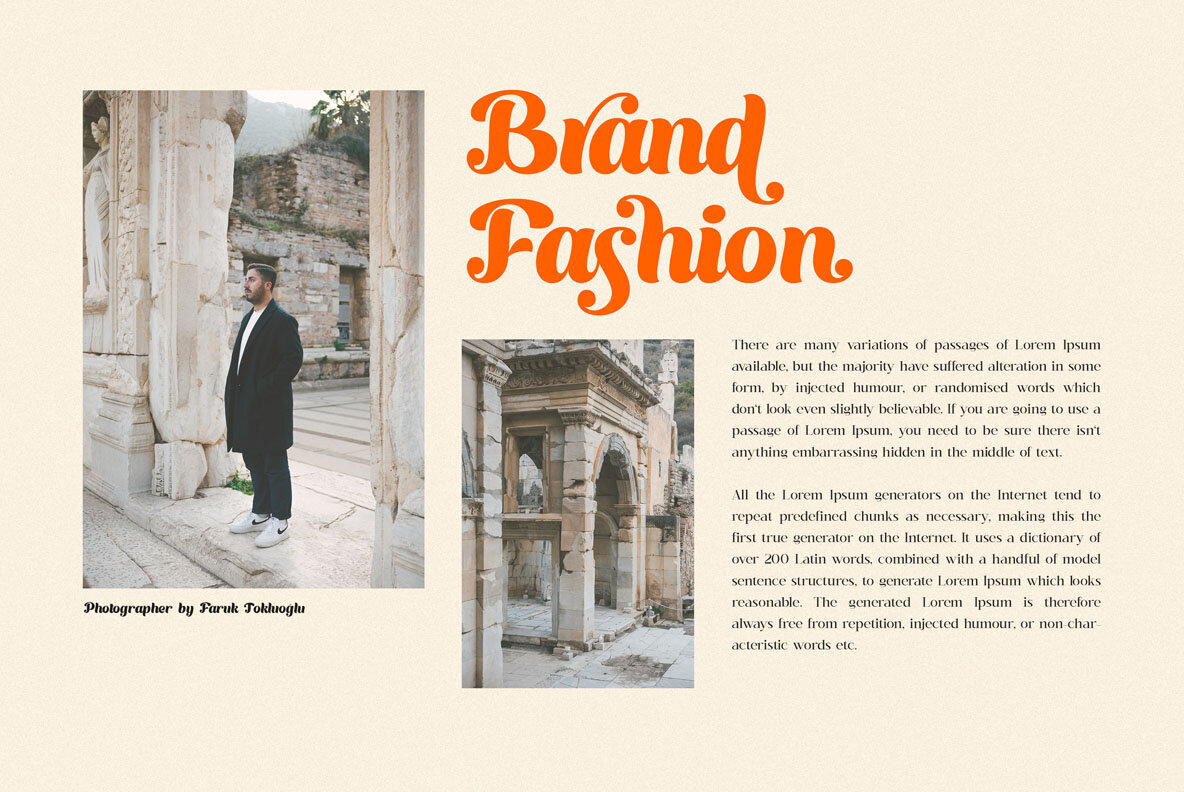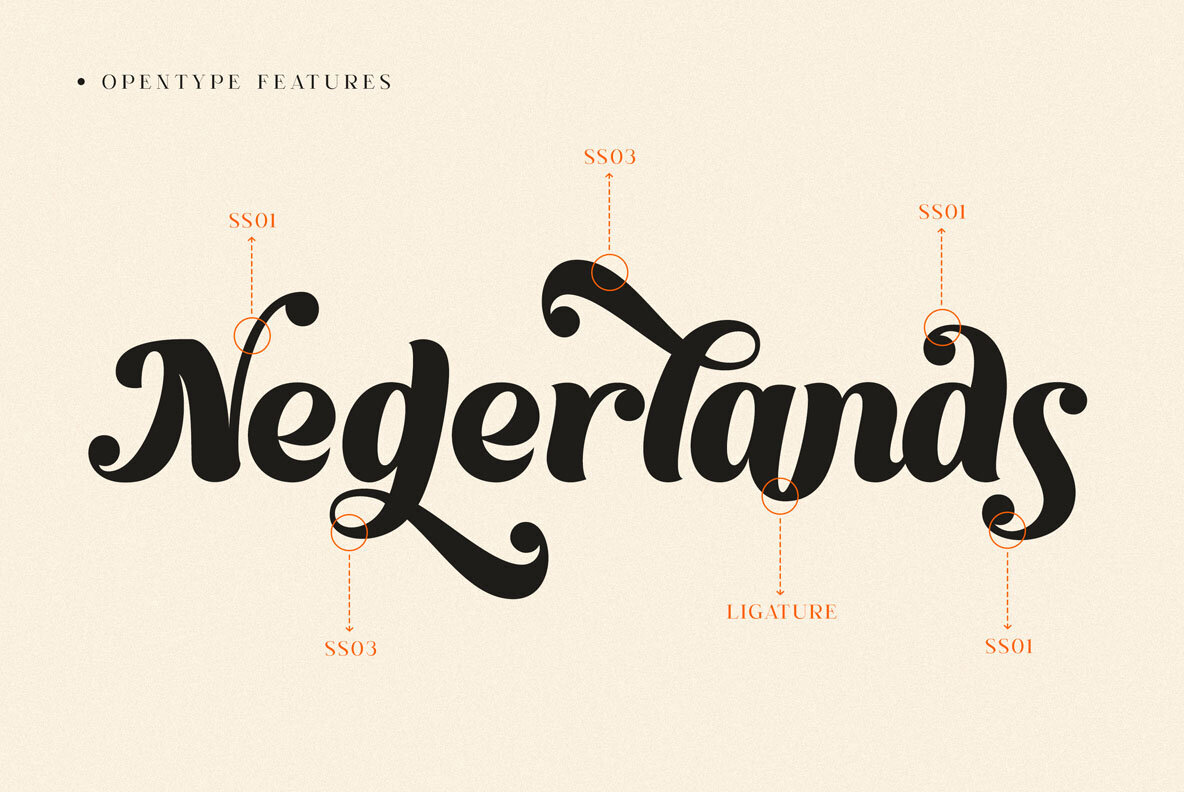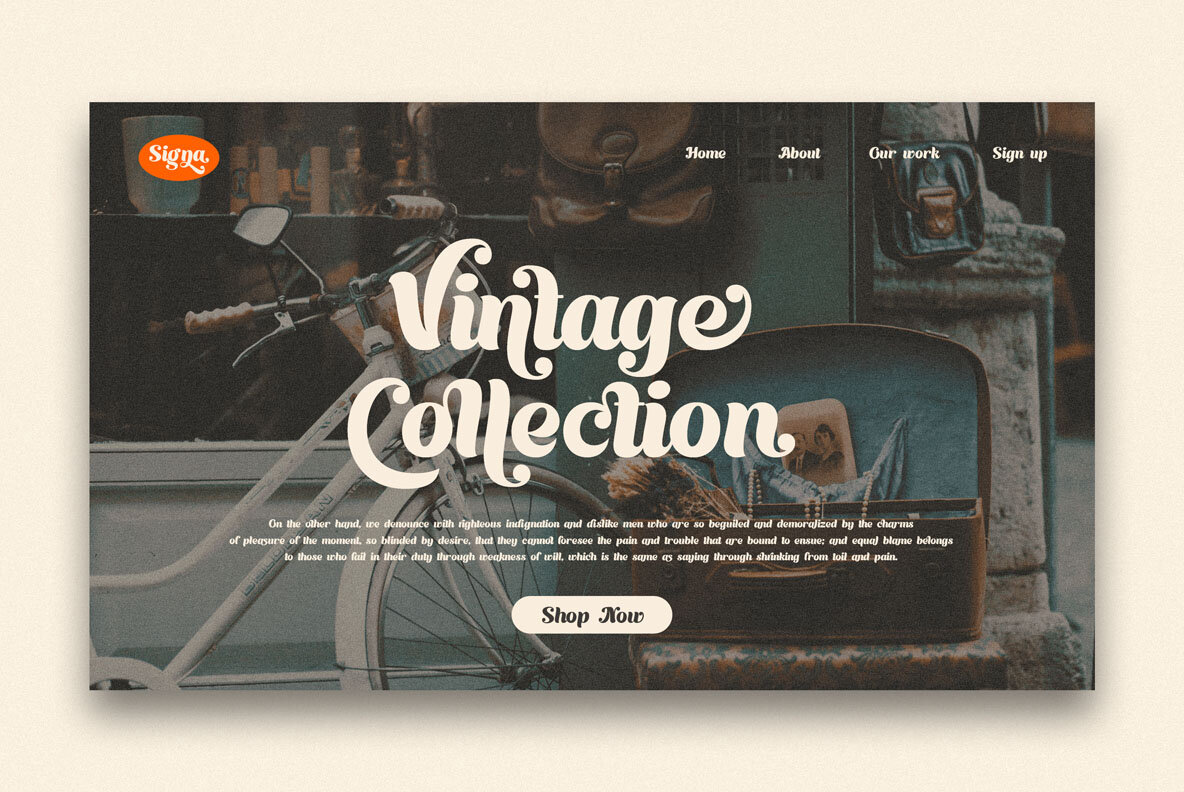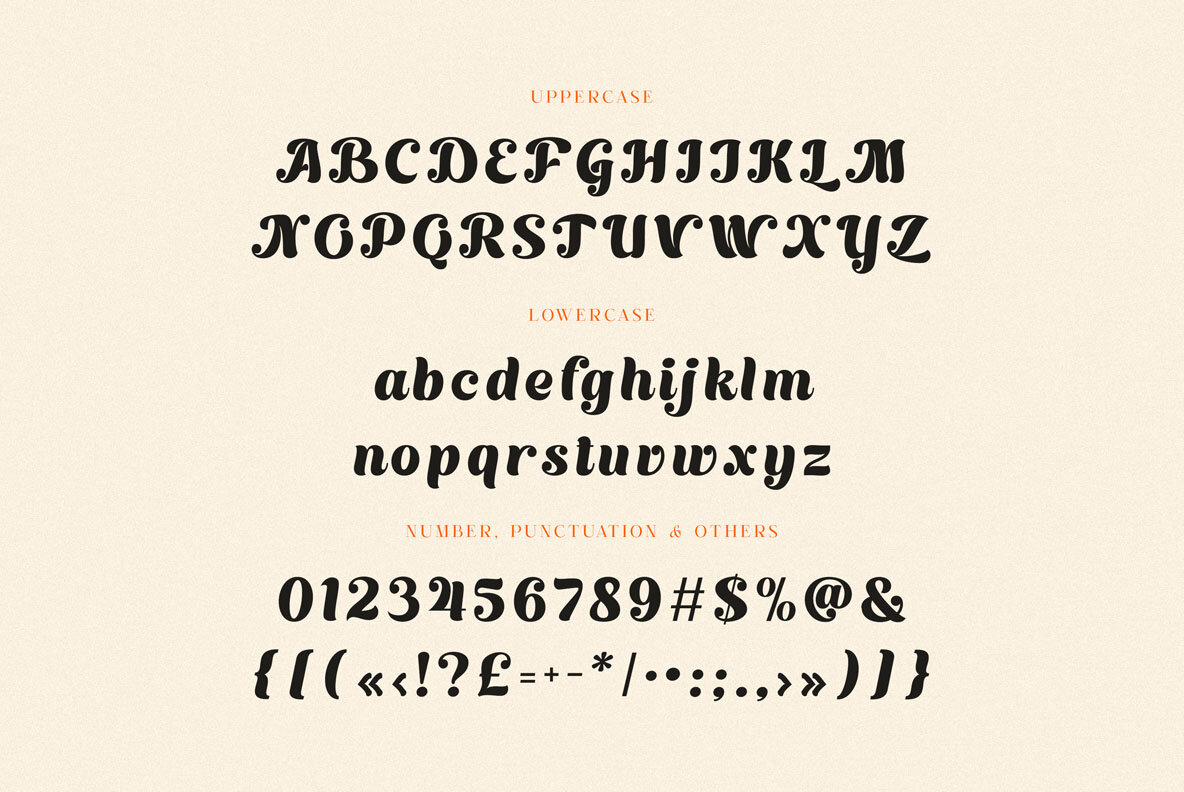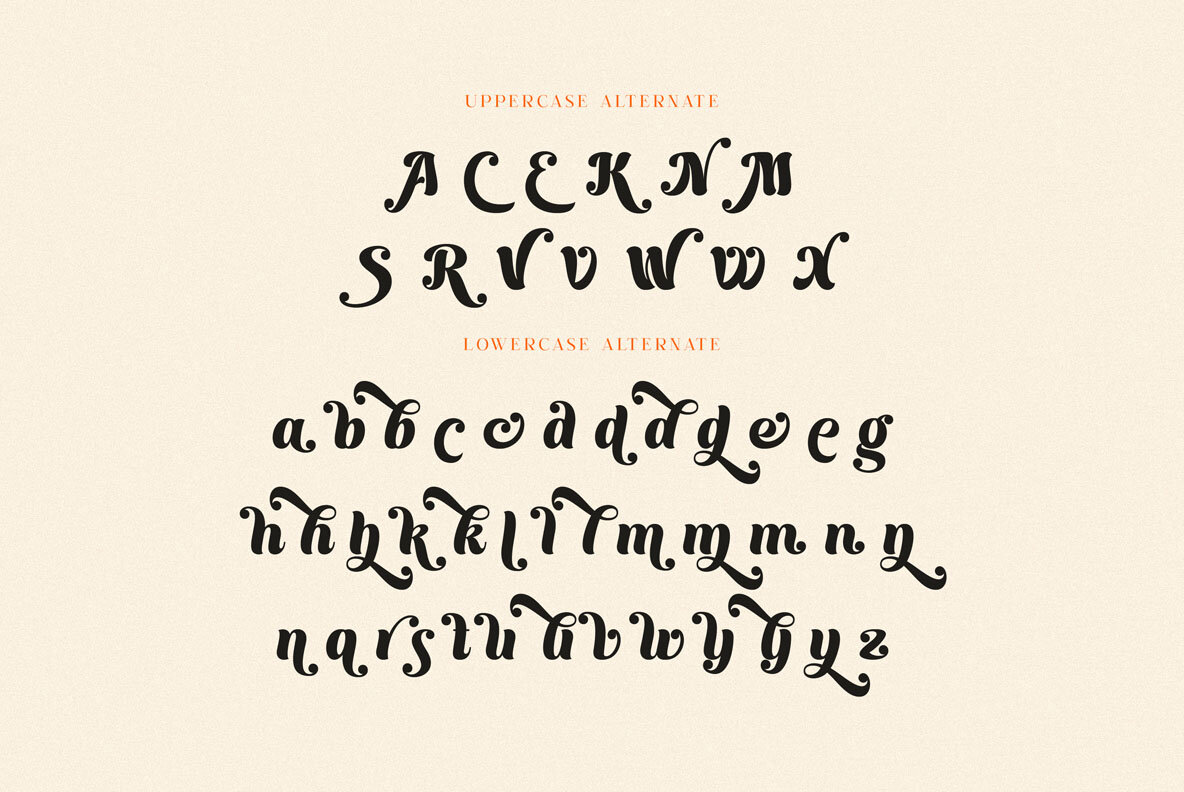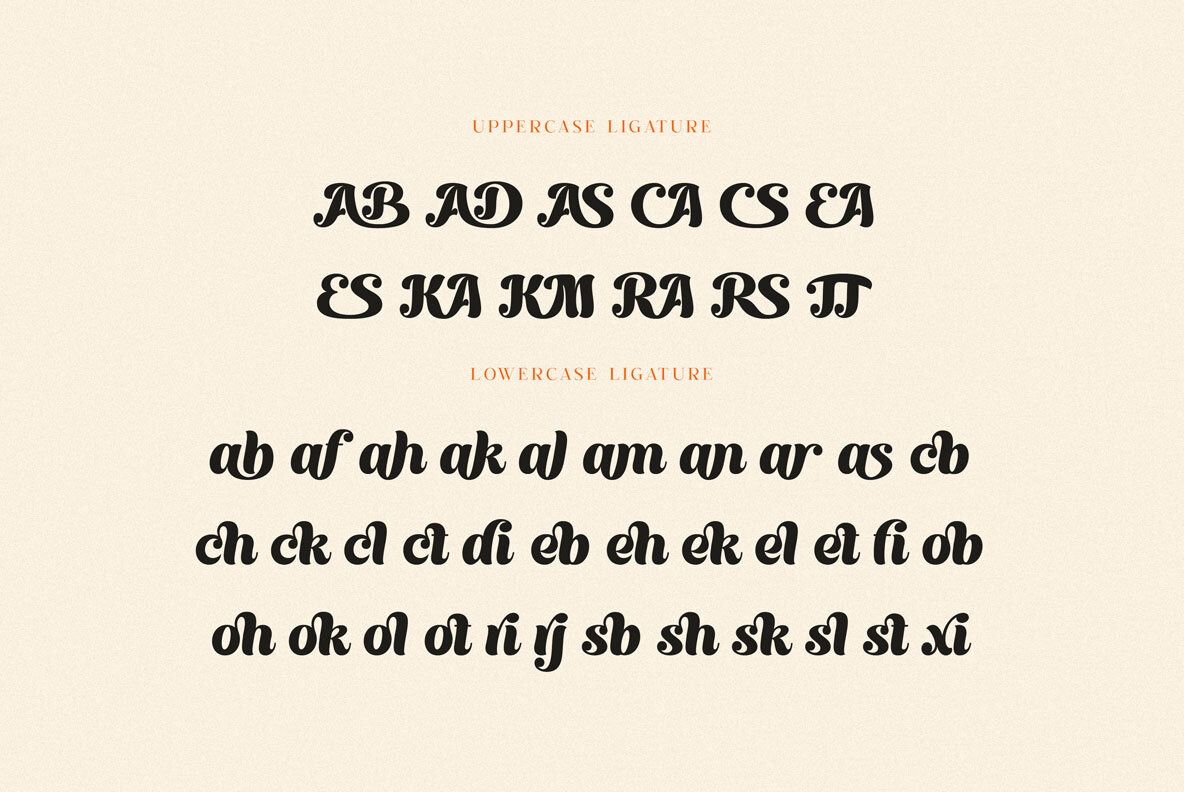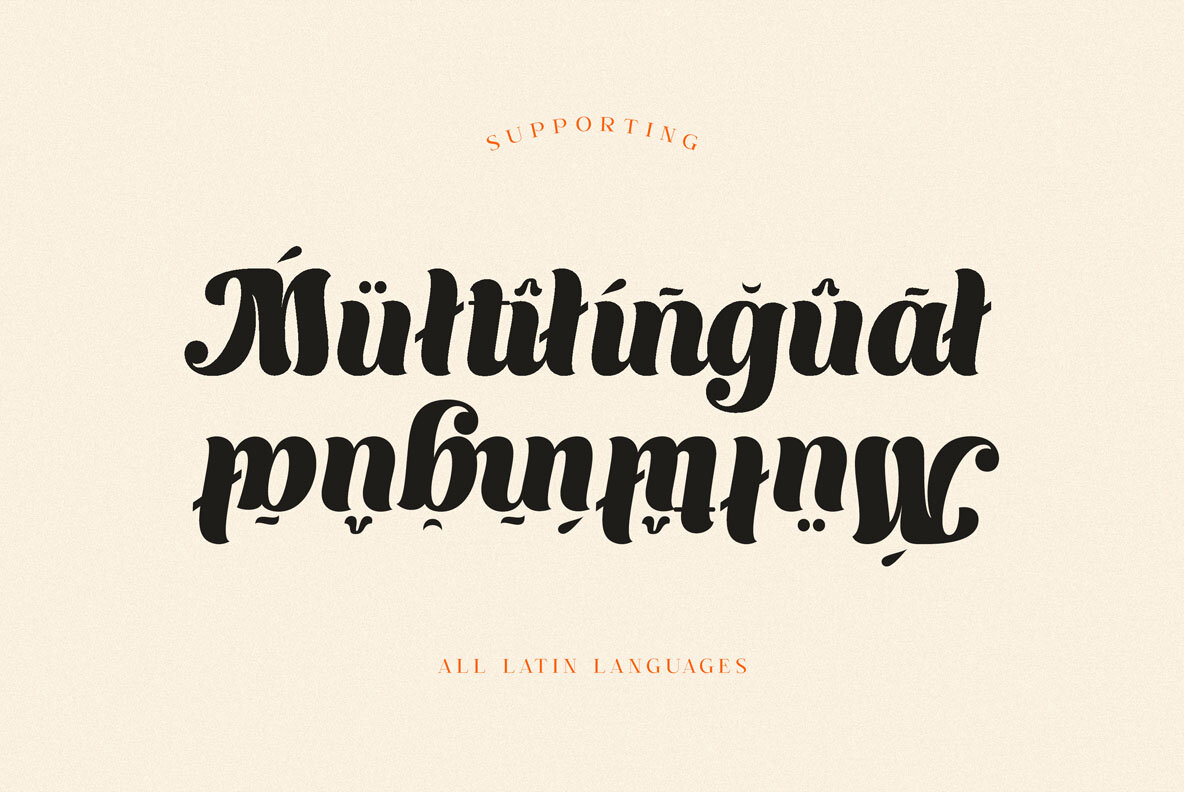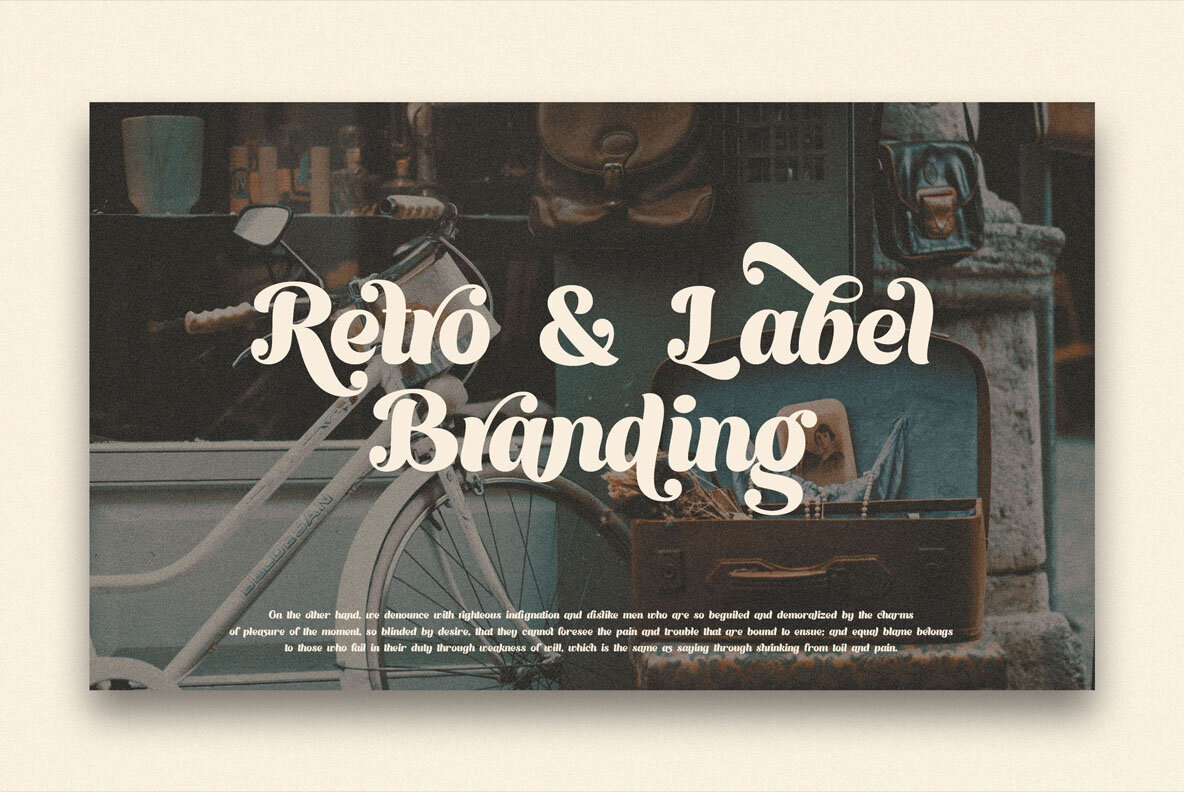
Catherine Font
Catherine Regular
Bold, rounded, vintage & retro style script font for your new fancy projects. Stylish, elegant, creative and classic style on Catherine font will be great for any modern or retro branding project. Lot of alternates and ligatures will help you to create unique and original logo design or website header! - Multilingual support - Alternate characters - Lot of ligatures - Great for modern or retro branding projects!